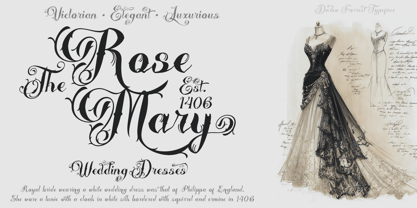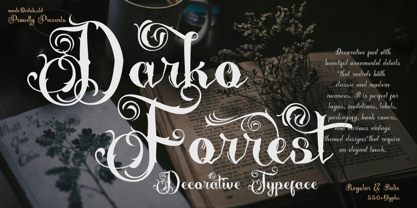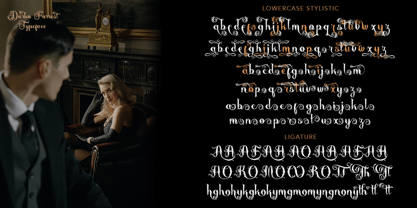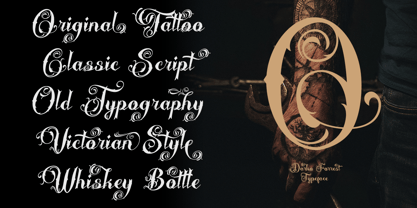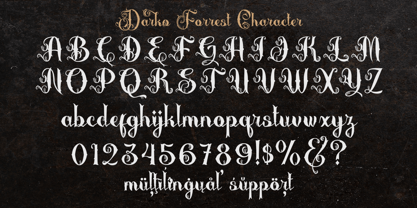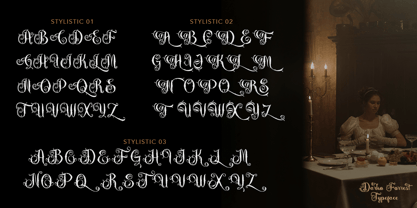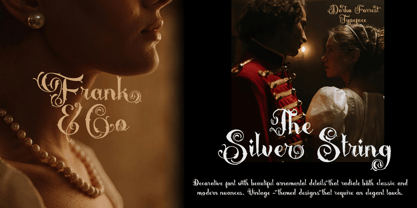
Darko Forrest
by madeDeduk
The Darko Forrest Font Family was designed by madededuk and published by madeDeduk. Darko Forrest contains 2 styles and family package options.
Introducing Darko Forrest, a decorative font that showcases exquisite ornamental details, blending classic and 1900s influences with old fancy lettering and vintage script. This font is ideal for a variety of display purposes in your product design, especially if you seek a vintage and classic aesthetic that exudes elegance and luxury. Perfect for applications such as book covers, product labels, logo badges, drink bottles, tattoo shops, coffee shops, branding products, wedding invitations, and more.